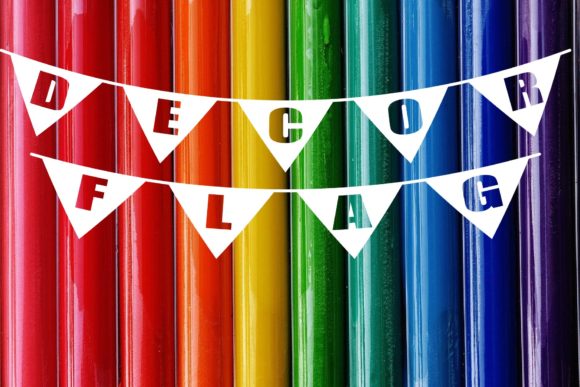
Introducing Decor Flag Font - A Celebration of Joy and Expression!
Step into a world of visual enchantment with Decor Flag Font, an exquisite display font that ignites your creativity and transforms your designs into captivating masterpieces. Designed by the visionary mind of KtwoP, this font is a true work of art, meticulously crafted to elevate your projects with a touch of festive charm and individuality.
Unleash your imagination and dive into a realm of possibilities with Decor Flag Font. Its playful and celebratory spirit makes it the perfect choice for any project that demands a personalized and eye-catching touch. Whether you're designing party invitations, creating social media graphics, or crafting unique logos, Decor Flag Font will effortlessly elevate your work to new heights.
Immerse yourself in the font's intricate details and expressive curves, each stroke carefully rendered to evoke a sense of joy and celebration. Decor Flag Font's distinct personality shines through in every letter, adding a dash of whimsy and charm to your designs. It's a font that speaks volumes, conveying messages of happiness, gratitude, and jubilation.
Experience the versatility of Decor Flag Font as it seamlessly blends with various design styles, from modern and minimalist to vintage and rustic. Its adaptability makes it a must-have for designers seeking a font that effortlessly complements their creative vision. Whether you're working on personal projects, professional endeavors, or client commissions, Decor Flag Font is your go-to choice for adding a touch of festive flair.